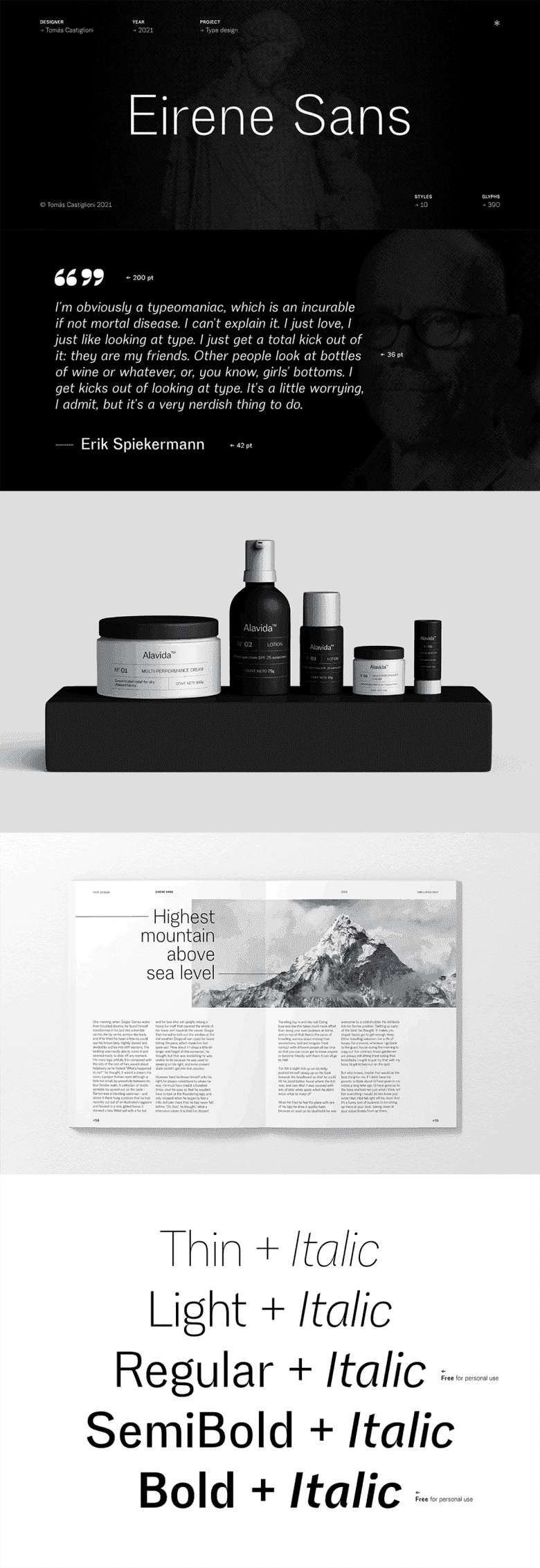
Eireneis is a sans serif font family of grotesque style with some humanistic features, but the main features of the font are simplicity, modernity and functionality. Capital letters have sharp and thin shoulders that give the letters a more elegant look.